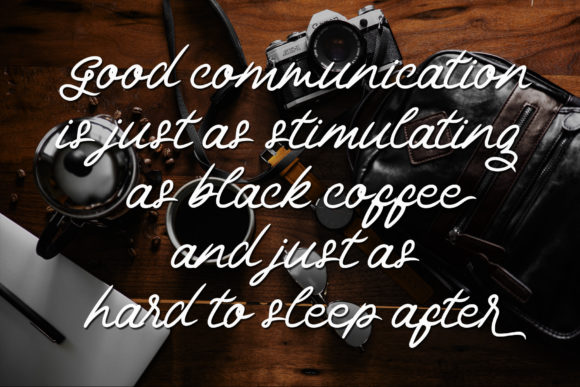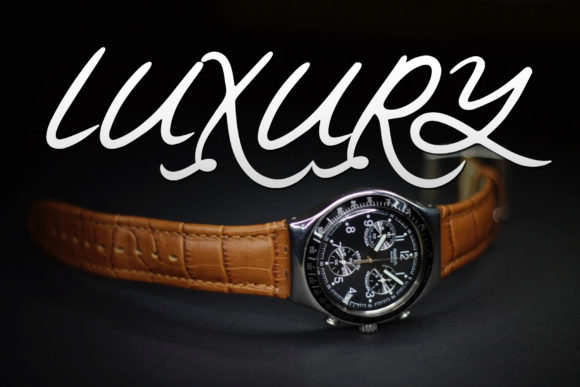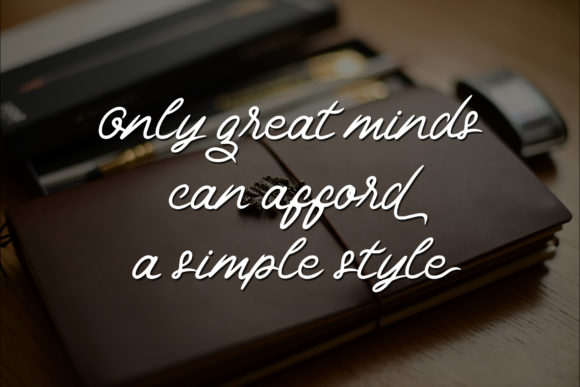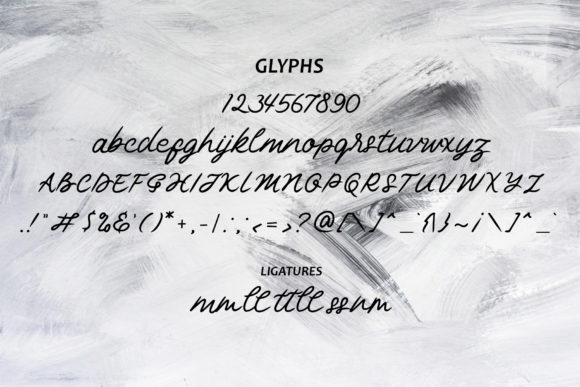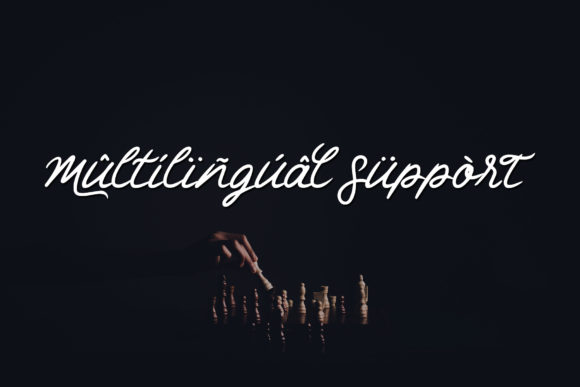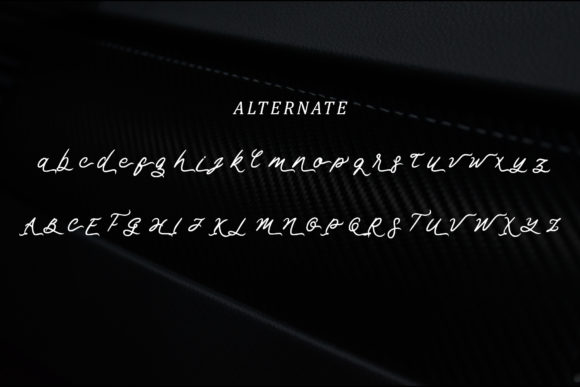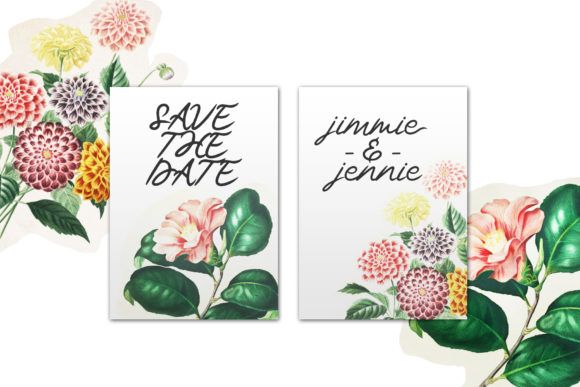
Chinmi Script Font
About Chinmi Script Font
Chinmi is a Japanese term meaning literally “rare taste”, but more appropriately “delicacy”.
This script font has unique uppercase’s, beautiful and elegant lowercase’s, and is suitable for name cards, posters, invitations, social media posts, and much more!